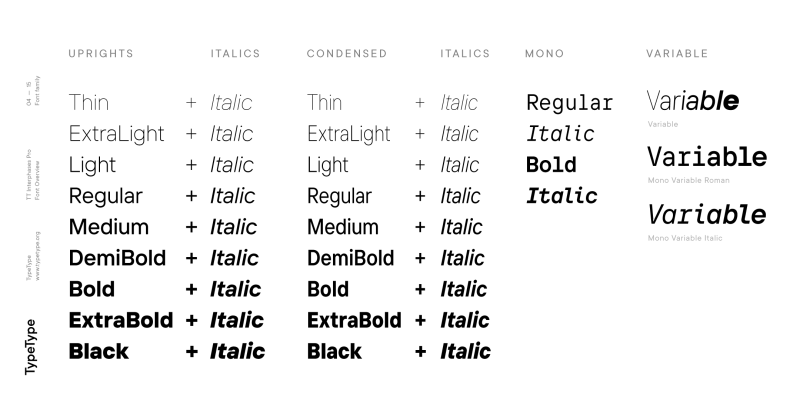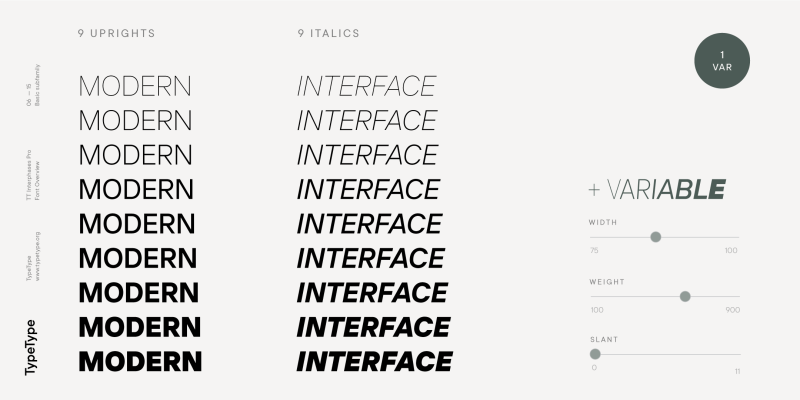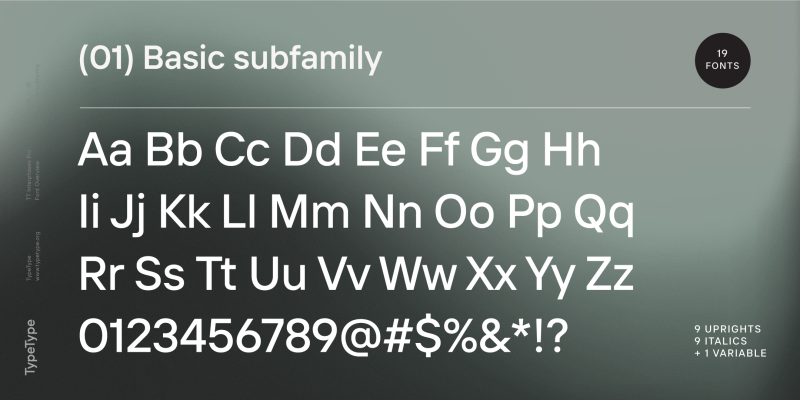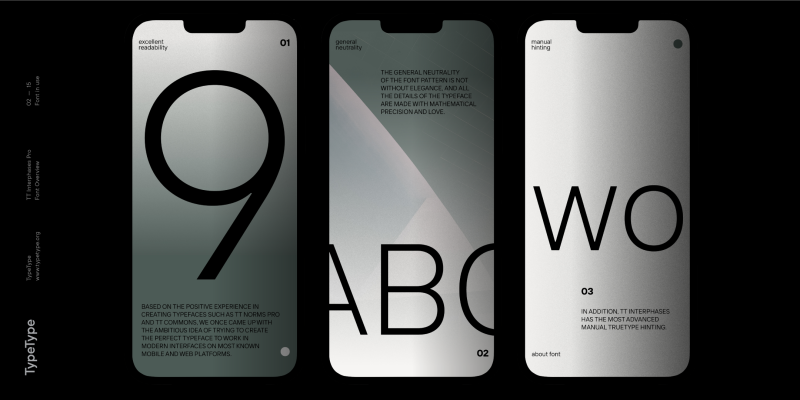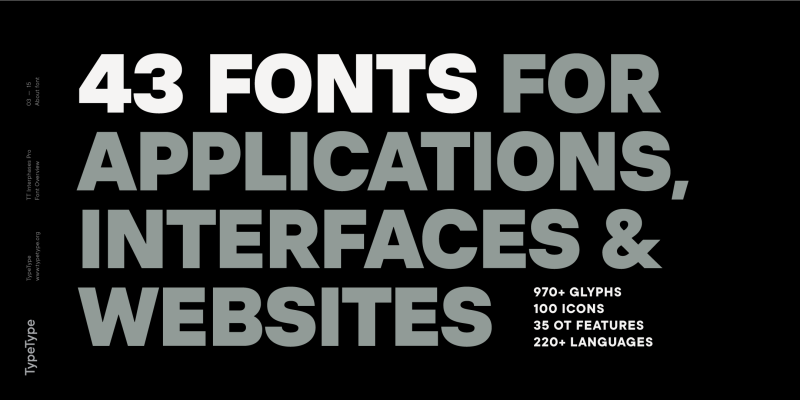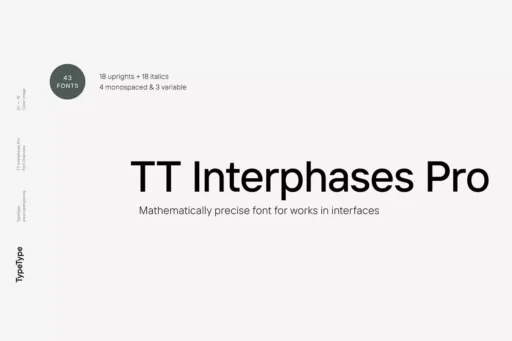
TT Interphases Pro Font
TT Interphases Pro is sans serif font family by TypeType with a modern and friendly appearance designed specifically for interfaces is now supplemented by its improved v…
TT Interphases Pro is sans serif font family by TypeType with a modern and friendly appearance designed specifically for interfaces is now supplemented by its improved version – TT Interphases Pro. This new font is an evolution over the original, offering increased usability and design versatility while retaining the original design’s key characteristics of being a neutral and versatile font.
TT Interphases Pro is a neo-grotesque sans serif font with equal width proportions which guarantees that the text does not look messy. Its tall lowercase letters are legible on screen, and the neutral shapes and square forms of round characters do not lose clarity even at small point sizes. The font’s fluid, uniform shapes, allow for easy reading of large texts, while the absence of serif at the openings gives it a modern and sophisticated look.
The font offers two widths: the standard width and a new Condensed version, perfect for tight text columns. Furthermore, TT Interphases Pro comes with a whole set of matching icons that make it a perfect match for current designs of mobile and web applications.
The TT Interphases Pro Mono subfamily extends the set of glyphs with a mono-linear design and evenly spaced shapes suitable for both coding environments and design projects. This monospace variant is as useful for developers as it is appealing to designers.
TT Interphases Pro includes 37 styles: 18 roman characters, 18 italics and a variable font, all of which contain 978 glyphs. These features include 24 OpenType features like tabular numerals, numerators, denominators, pro and regular forms of characters ‘a’, ‘l’ and ‘y’. Monospace subfamily has six weights with uprights, italics and variable fonts; besides, there are 18 functional features of OpenType.
TT Interphases Pro Font stays legible at small sizes, which makes it a strong choice for navigation, buttons and dashboards in web design and app interfaces.
Clean sans serifs like TT Interphases Pro Font are the default language of SaaS, fintech and product branding.